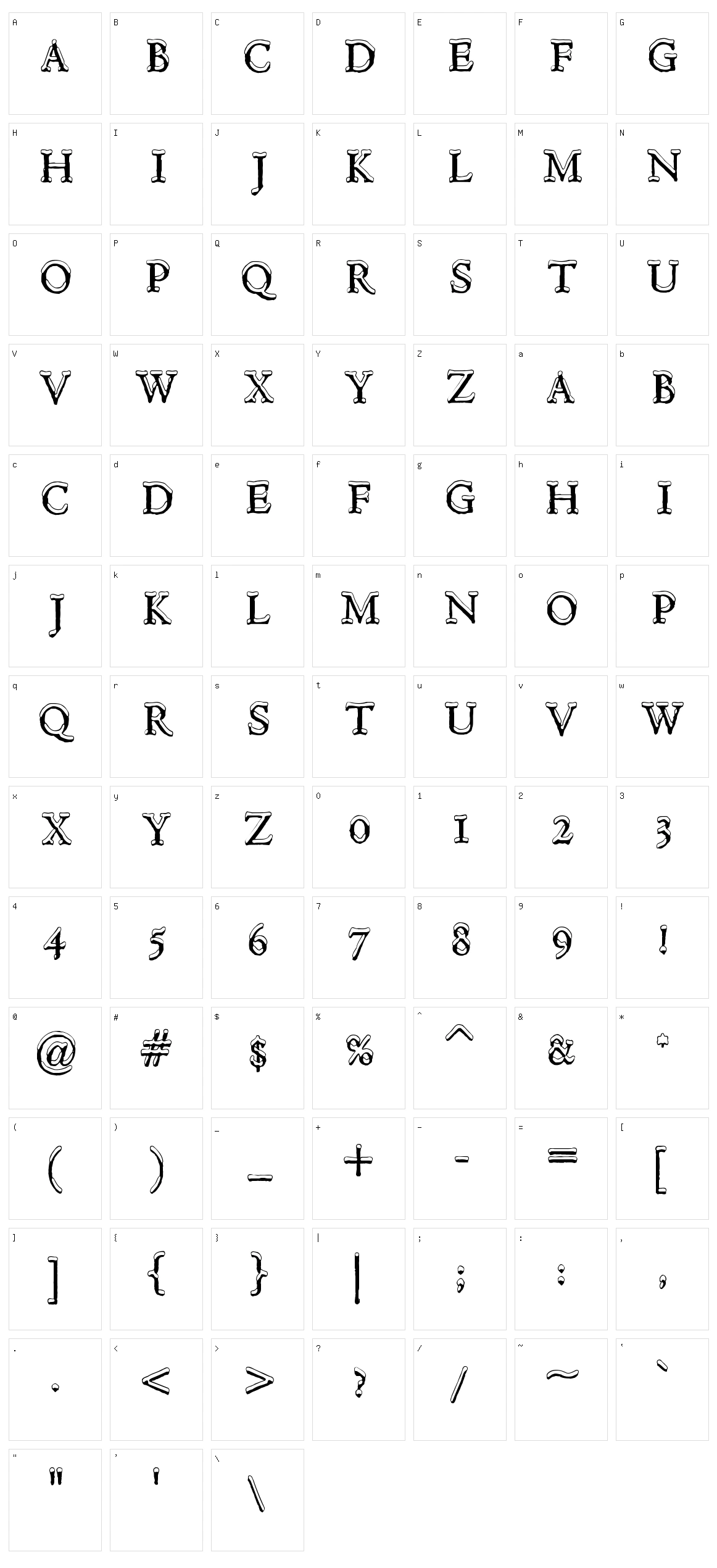
HULTOG SNOWDRIFT
A TrueType Font by S. John Ross
While mentally cataloguing the font-variant clichés I havent explored yet (there are only a few left!) it occurred to me that Ive never dabbled in the snow-top genre, despite being happily obsessed with all things wintry. So, I dove into it enthusiastically, playing with rough clumps of snow, smooth drifts of snow, piled-high stacks of snow and so on. This is one of the more useful of the early experiments, a new Hultog variant (all-caps, but otherwise a full-keyboard set).